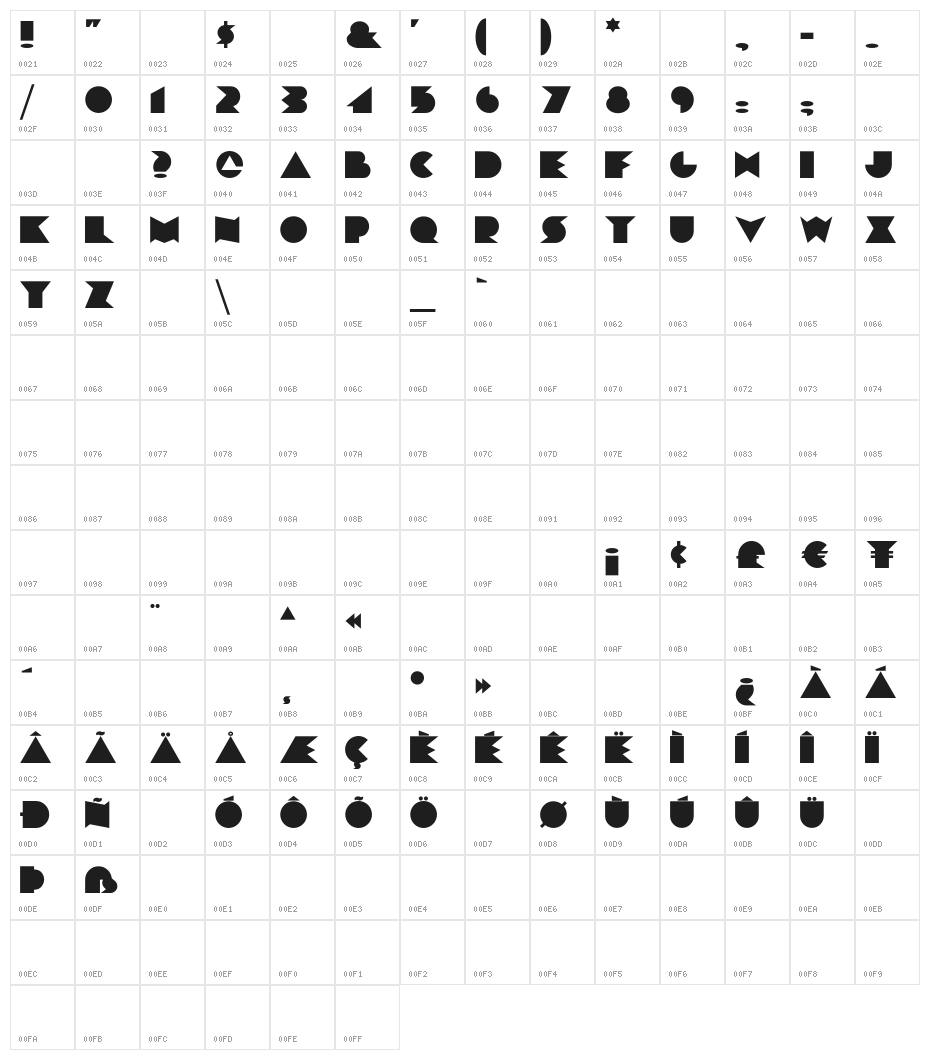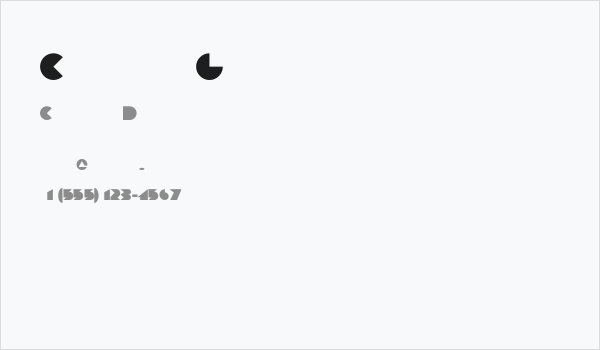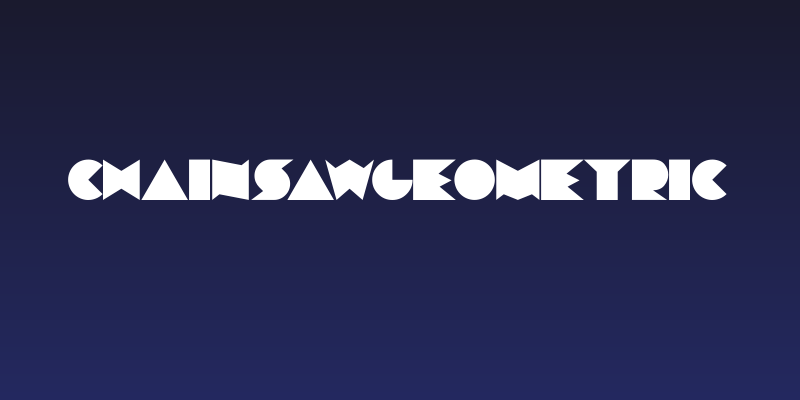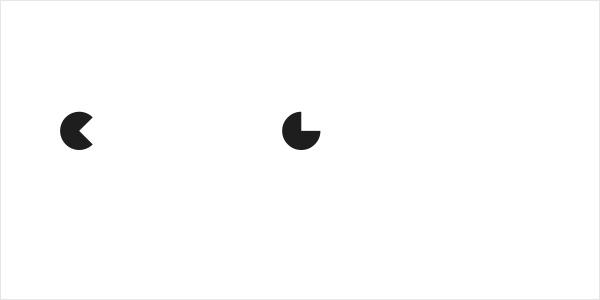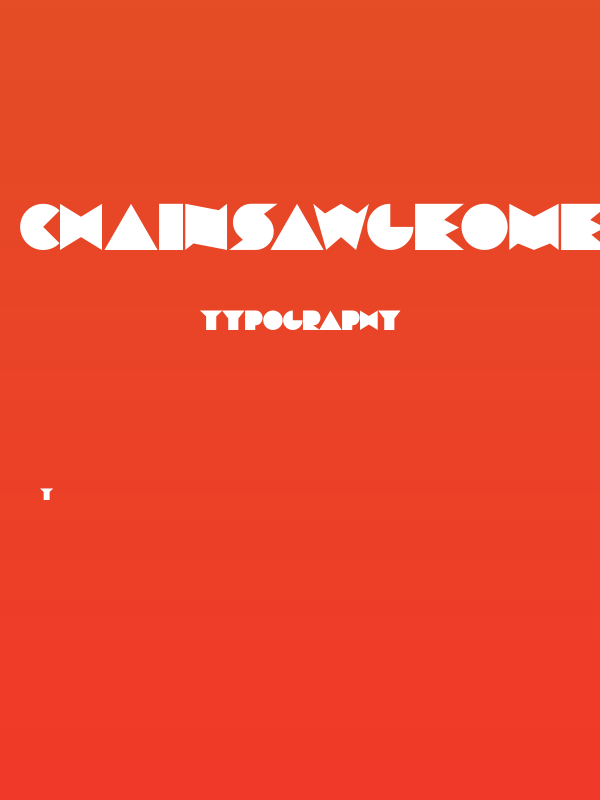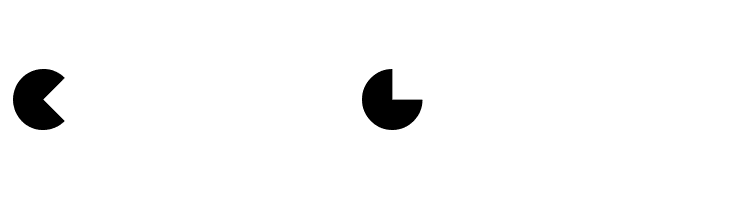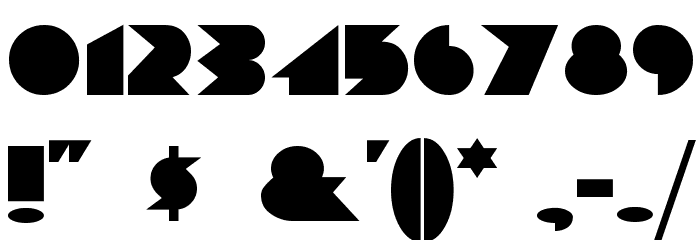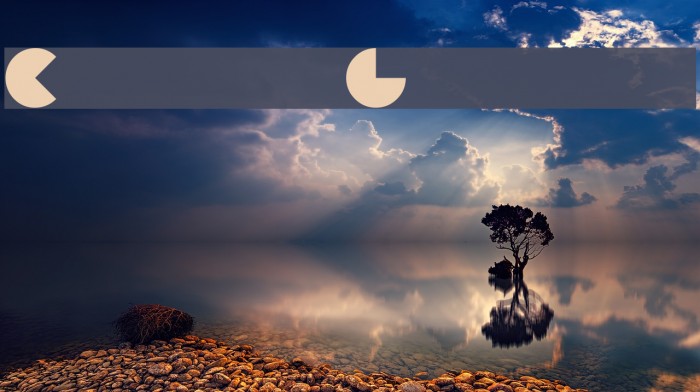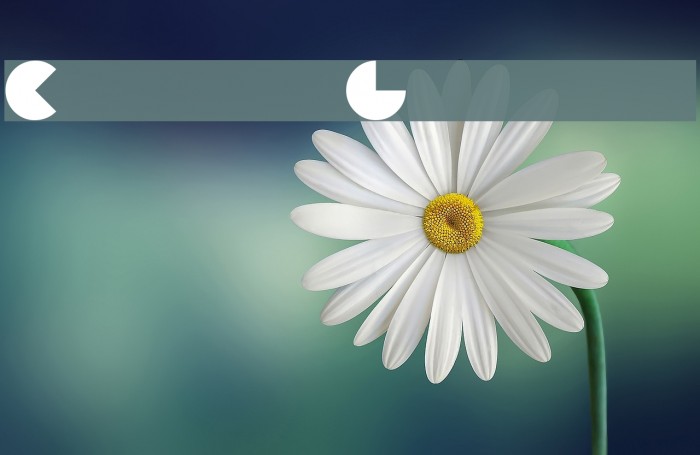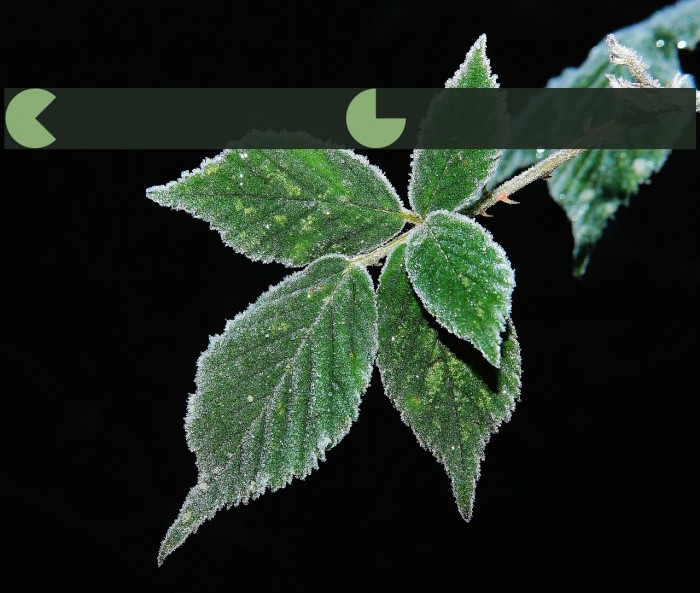
ChainsawGeometric Font
ChainsawGeometric Description
This font features a bold and geometric design, characterized by sharp angles and a strong visual impact. The letters are constructed with a combination of straight lines and circular shapes, creating a dynamic and modern appearance. The uppercase letters are particularly striking, with a consistent use of triangular and circular elements that give the font a cohesive look. The numbers and special characters follow the same design principles, ensuring uniformity across all glyphs. This font's unique style makes it stand out, suitable for projects that require a bold and attention-grabbing typeface.
| Proposed Projects | Ideal for posters, logos, branding, and any design requiring a modern, bold typeface. |